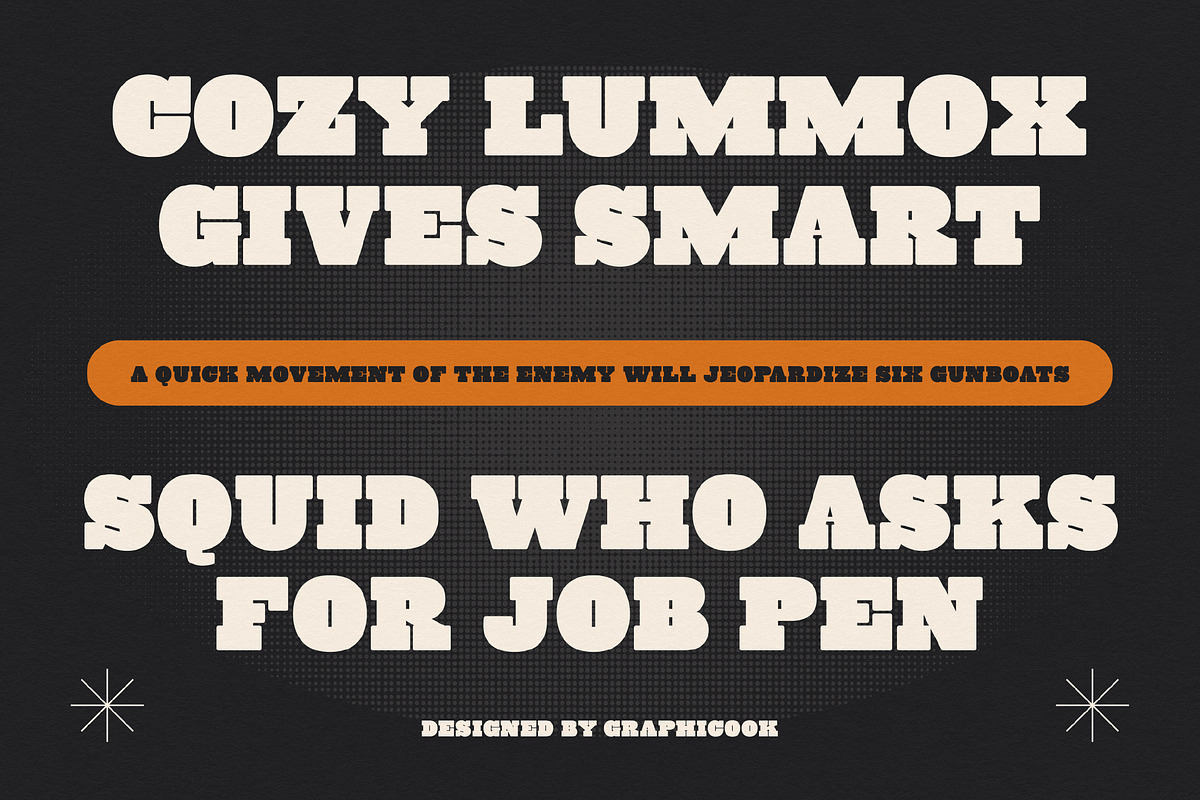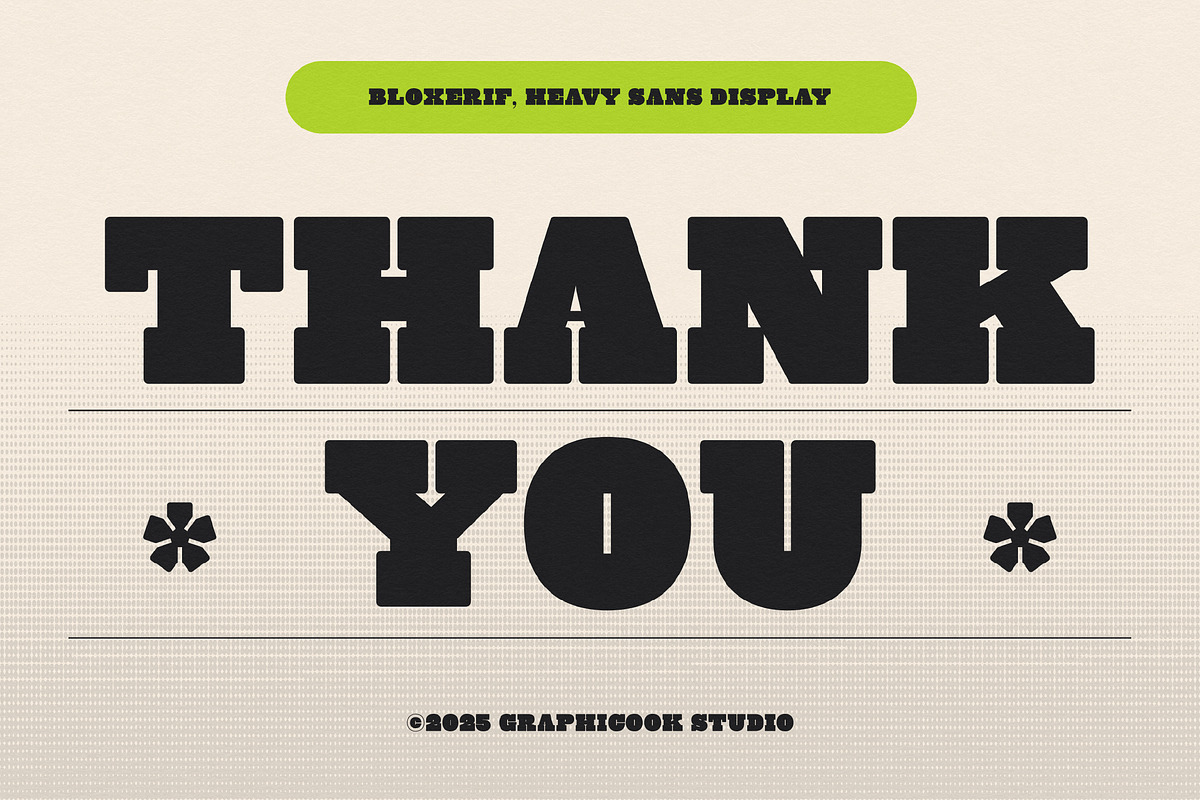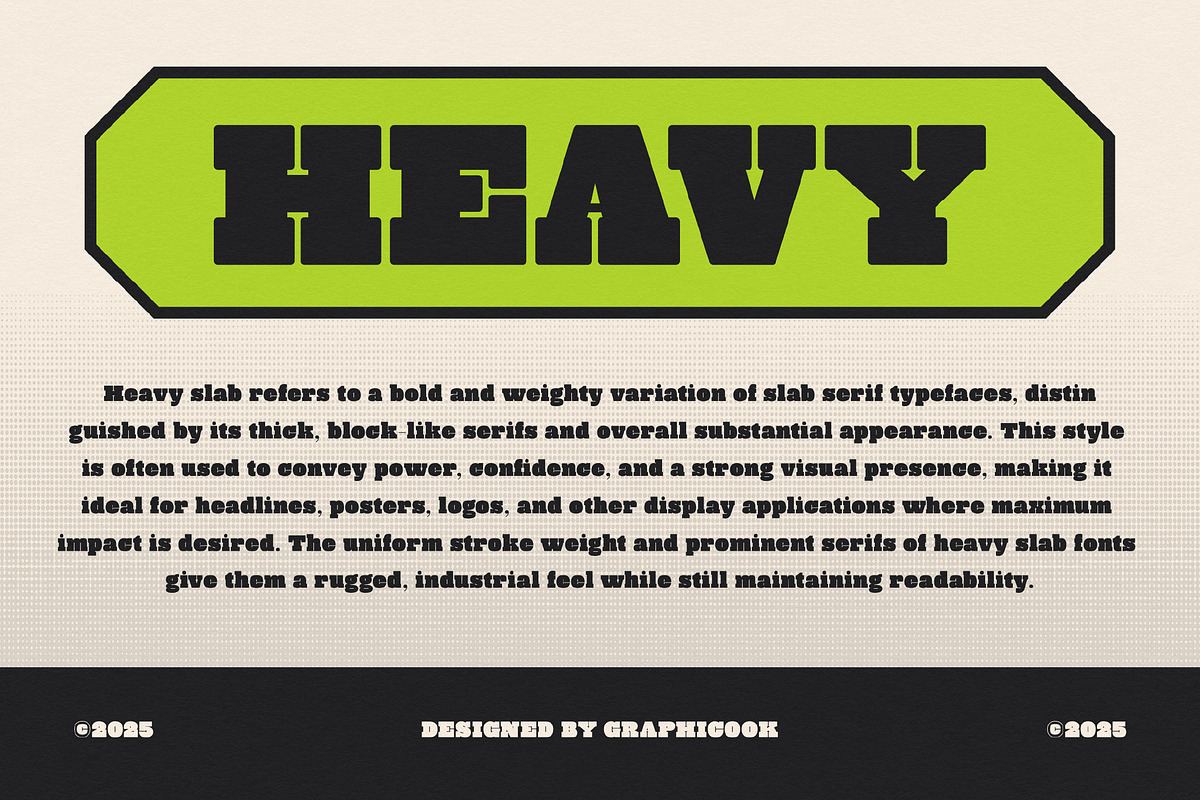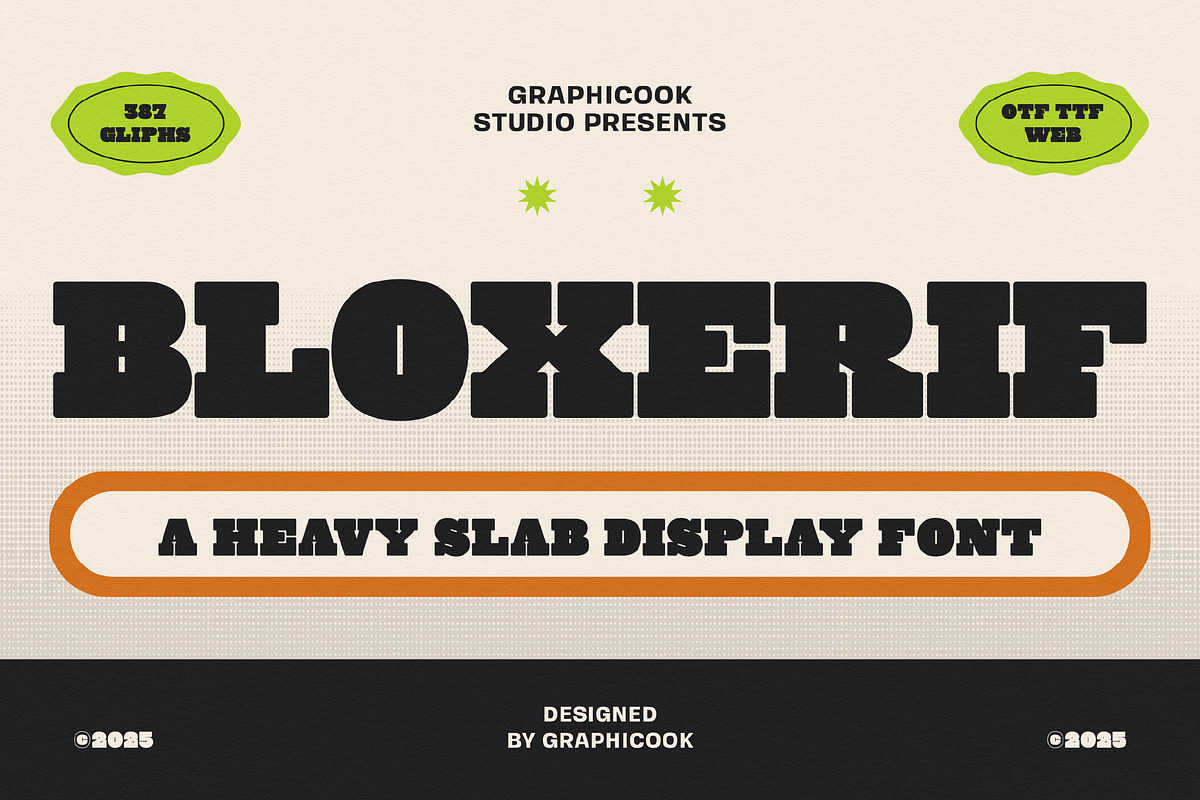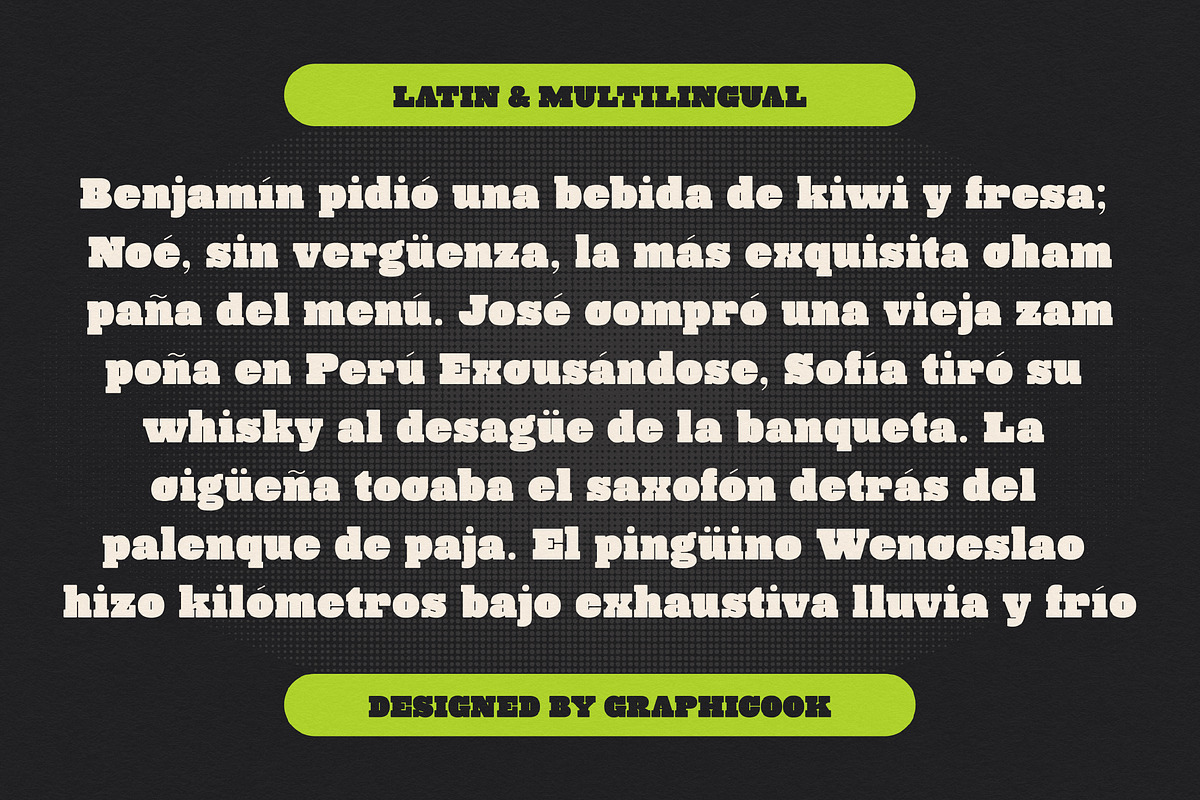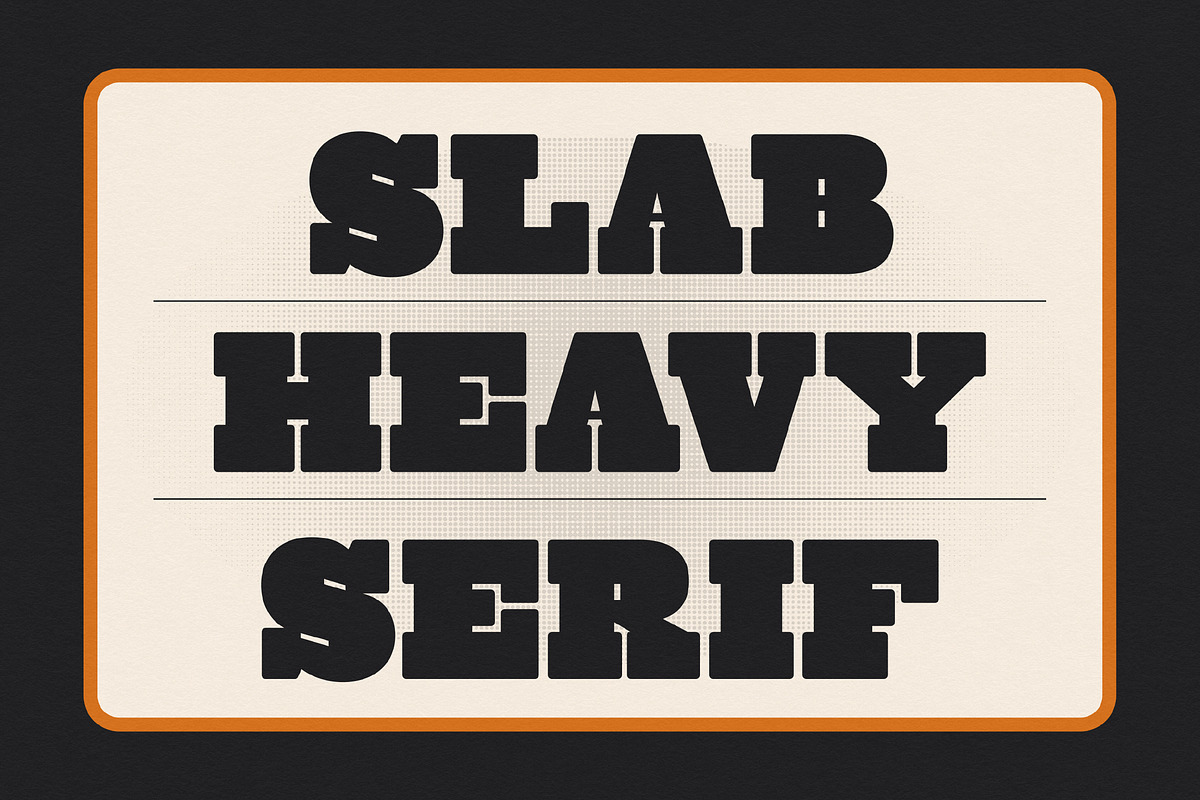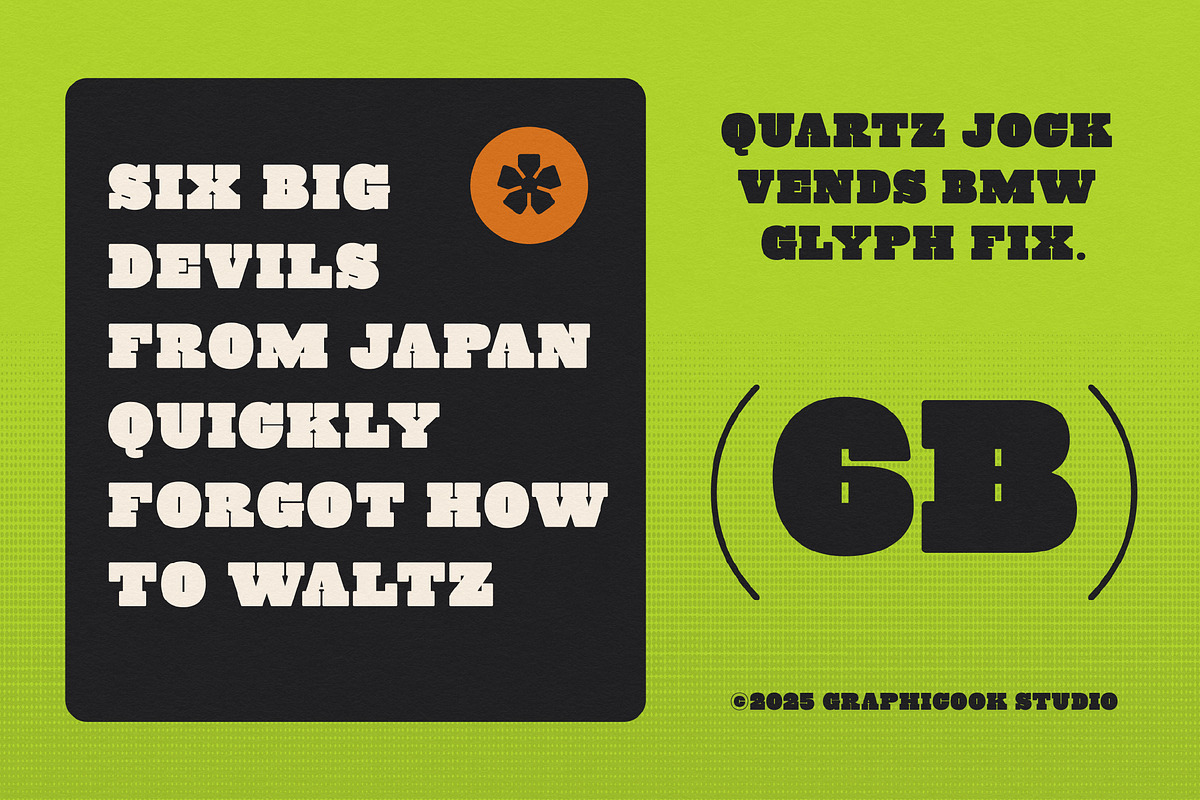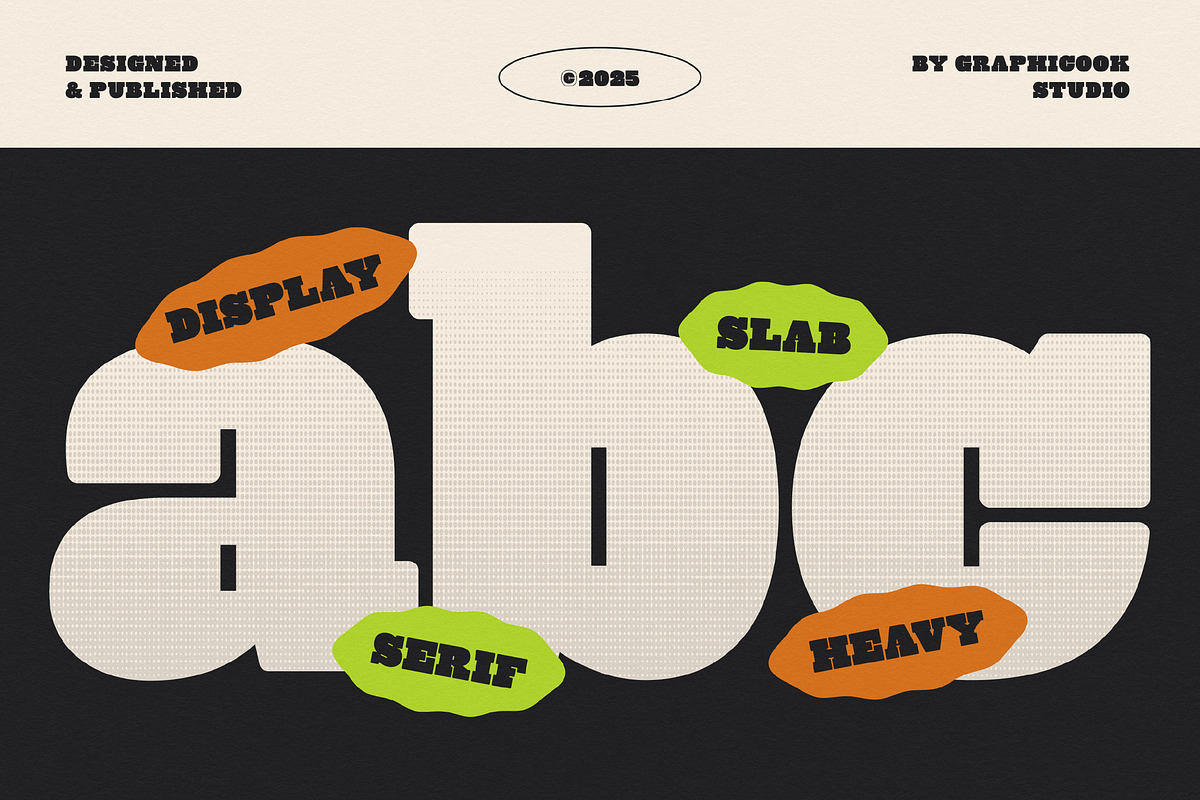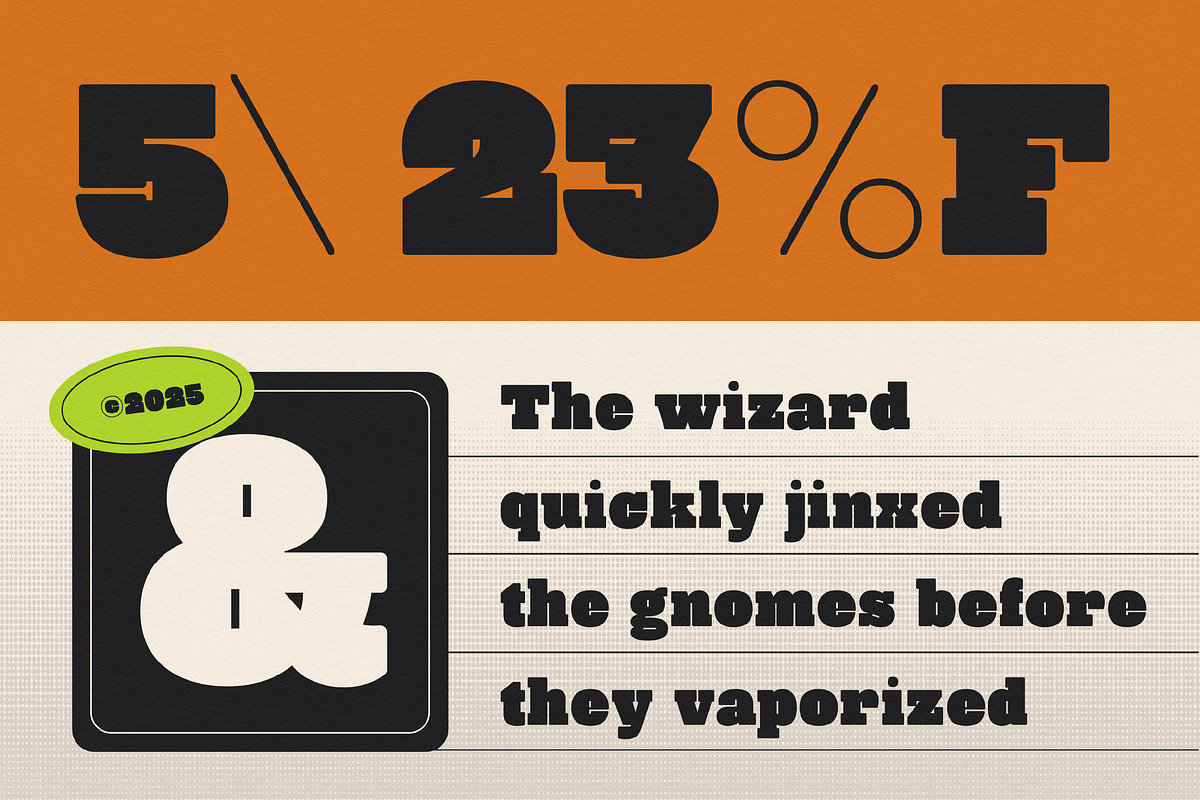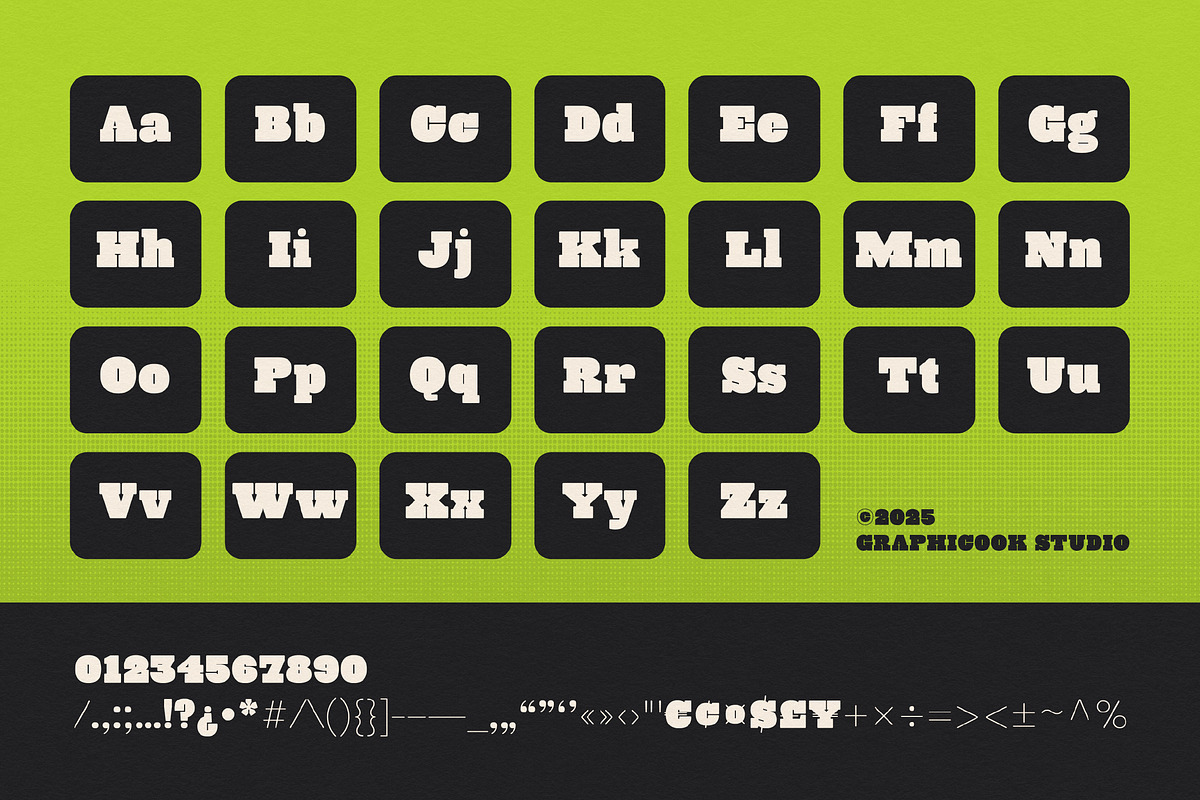
Bloxerif
Bloxerif is a slab-serif font featuring boxy, bold letterforms that convey a strong and masculine impression. It's ideal for logos or headlines that demand high visual impact.
Bloxerif is perfect for headlines, logotypes, magazines, packaging, quotes, movies, games, cover albums, book covers, and flyers, it's a perfect solution for creating eye-catching designs that stand out in any context.